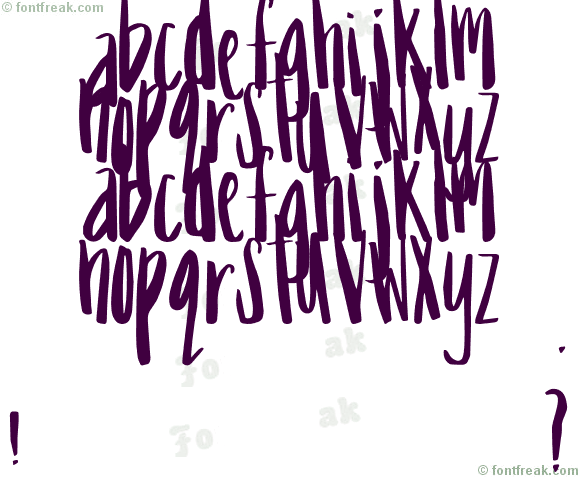
Mix Tumble
The Mix Tumble font by Mikko Sumulong is a captivating display typeface that embodies a playful yet sophisticated character. This font features a unique blend of bold strokes and whimsical curves, making it perfect for a variety of design applications. The strokes are moderately thick with a consistent weight, providing a solid presence while maintaining an inviting feel. The playful nature of the letters is enhanced by slightly irregular spacing, giving the font a handcrafted look that draws the eye. Its distinctive design elements make it a standout choice for projects seeking to add a touch of creativity.
Mix Tumble is particularly well-suited for use cases such as wedding invitations, where its charming aesthetic can enhance the romantic feel of the event. It also works wonderfully for children's book covers, allowing for a fun and engaging presentation that appeals to young readers. Additionally, this font can elevate restaurant menus, infusing them with personality and warmth that entices diners. Graphic designers will find it an excellent choice for branding projects, especially when looking to convey a friendly and approachable image. Content creators can also leverage this font for social media graphics, ensuring their posts stand out in crowded feeds.
The target audience for Mix Tumble includes graphic designers, small business owners, and content creators who are in search of a versatile and visually appealing typeface. The Mix Tumble font free download offers an accessible opportunity for anyone looking to enhance their projects with a fresh and dynamic typographic choice. What sets this font apart is its ability to balance playfulness with professionalism, making it a valuable addition to any designer's toolkit. Its engaging style can breathe life into various creative endeavors, ensuring that your work captures attention and leaves a lasting impression.